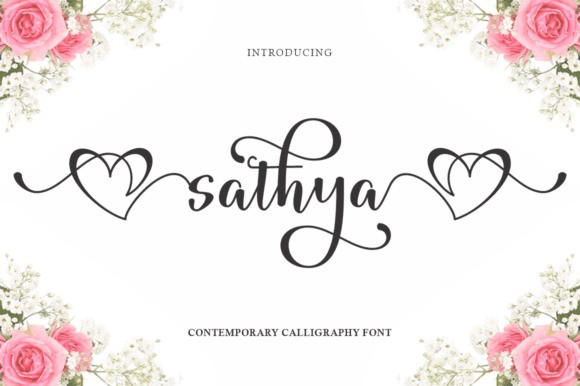
Sathya Font
Sathya Font is a beautiful handwritten font perfect for branding projects, home appliance design, product packaging, business cards, invitation cards, or just as a stylish text overlay onto a background image or anything else that needs a touch of elegance.